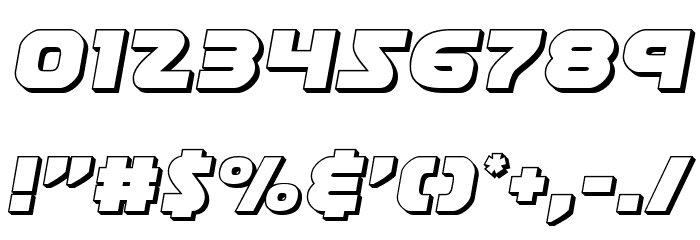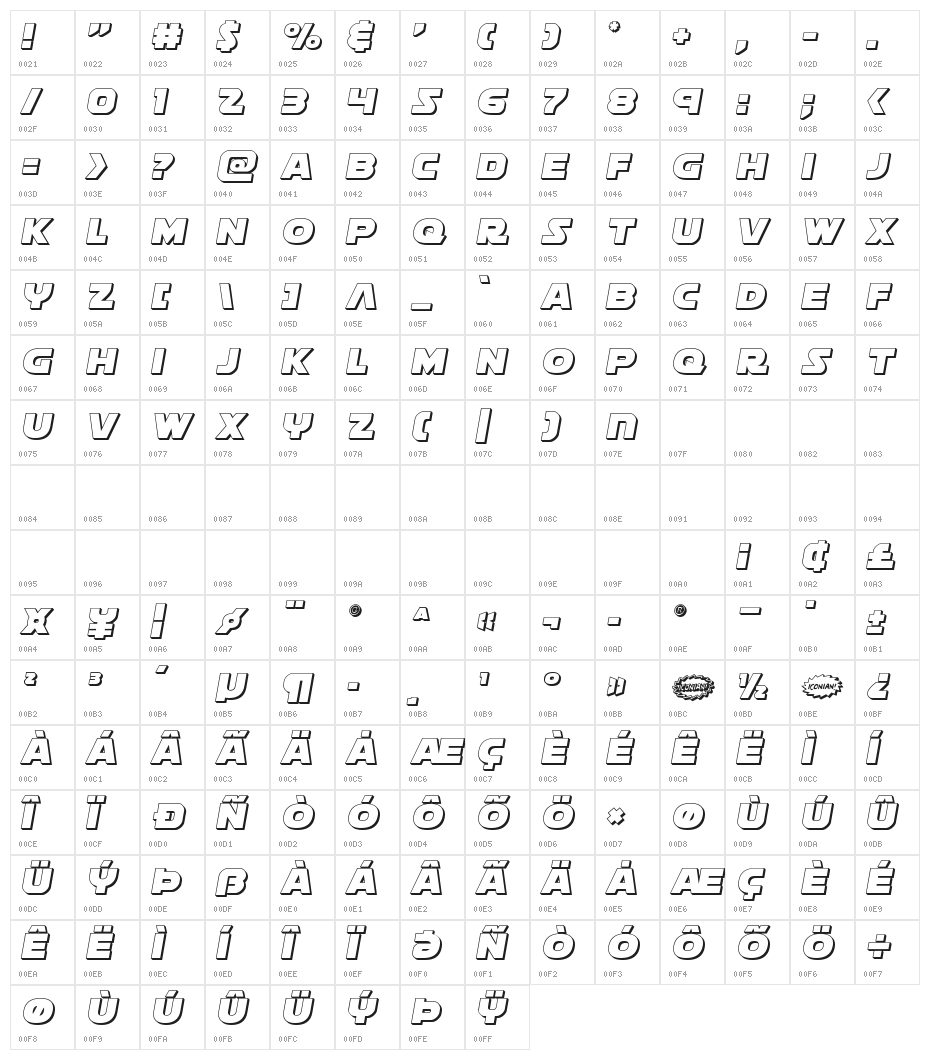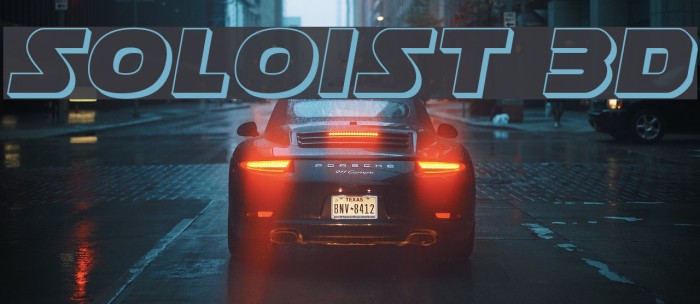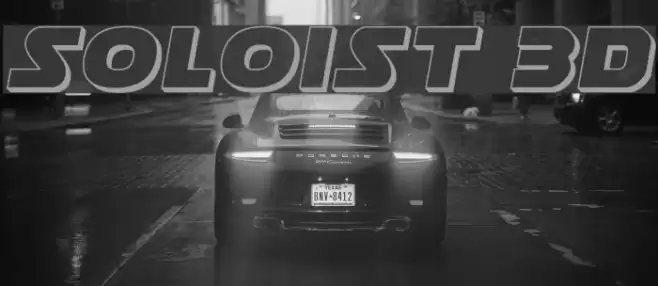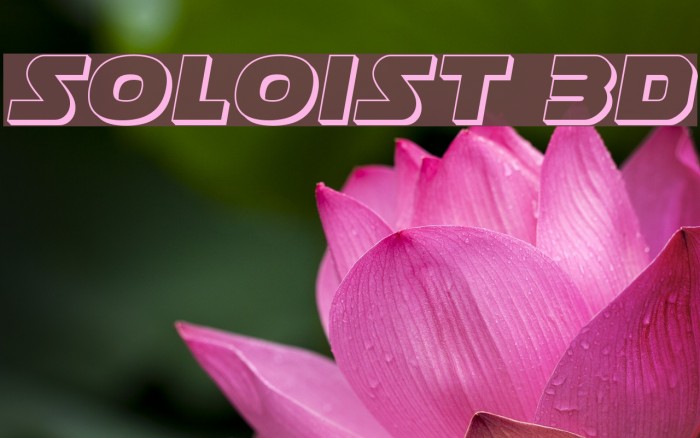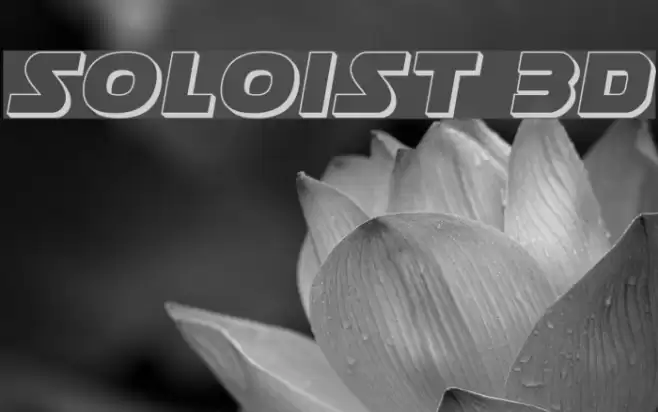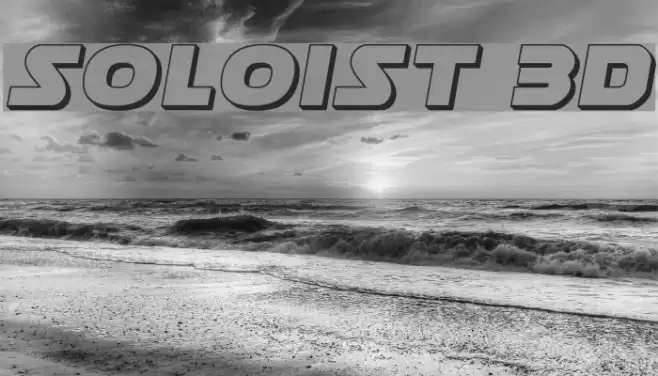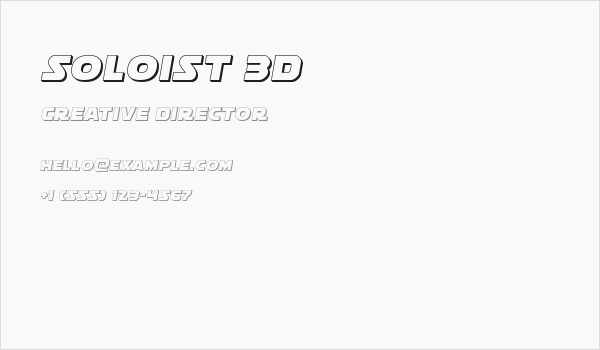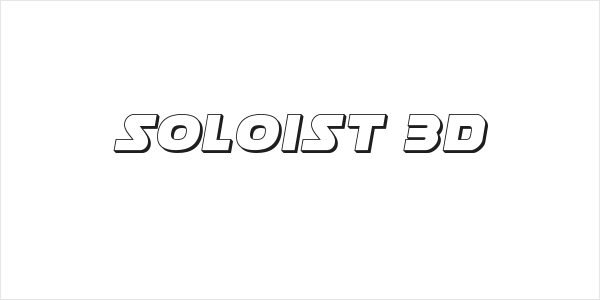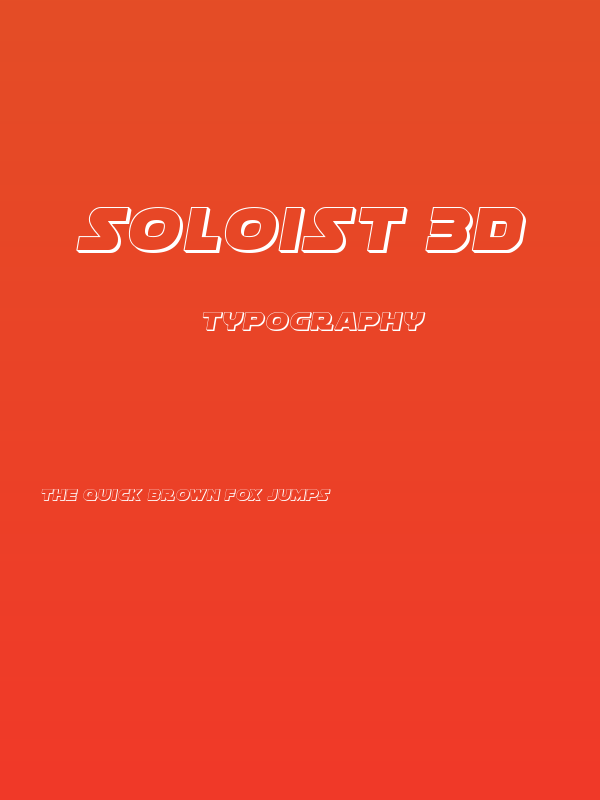
Soloist 3D Font
Soloist 3D Description
This font features a bold, three-dimensional appearance with a strong, impactful presence. The letters are capitalized and exhibit a shadow effect that gives them depth and a sense of movement. The design is clean and modern, with each character having a consistent width and a slightly condensed form. The edges are sharp and well-defined, enhancing the font's readability while maintaining its decorative style. The numbers and special characters follow the same design principles, ensuring uniformity across all elements. This font is ideal for projects that require a dynamic and eye-catching display.